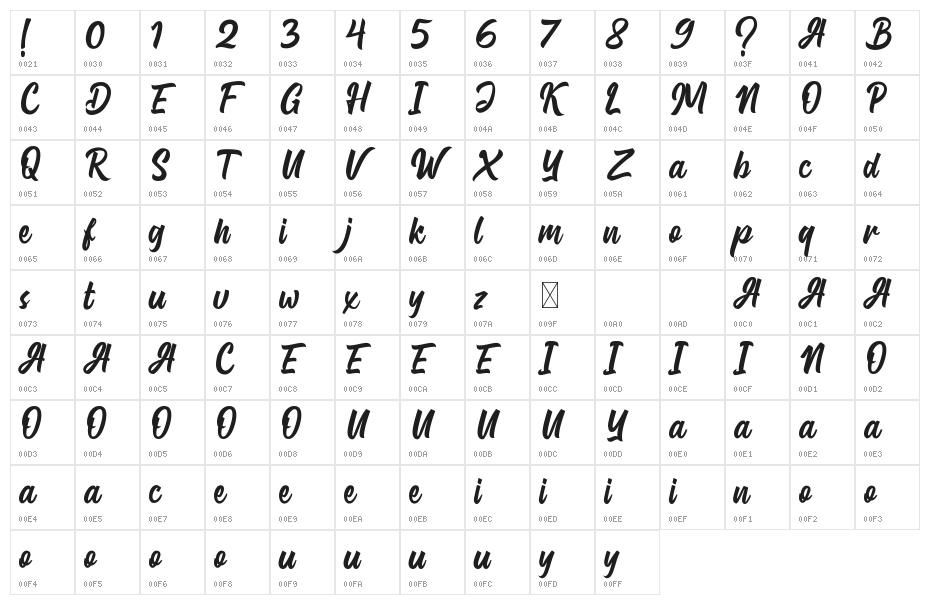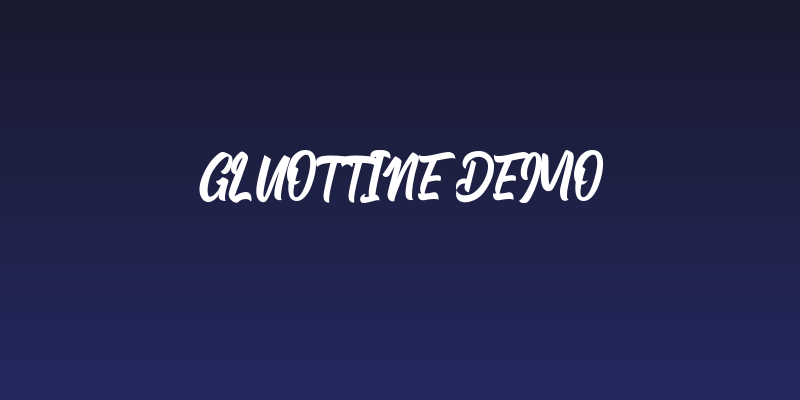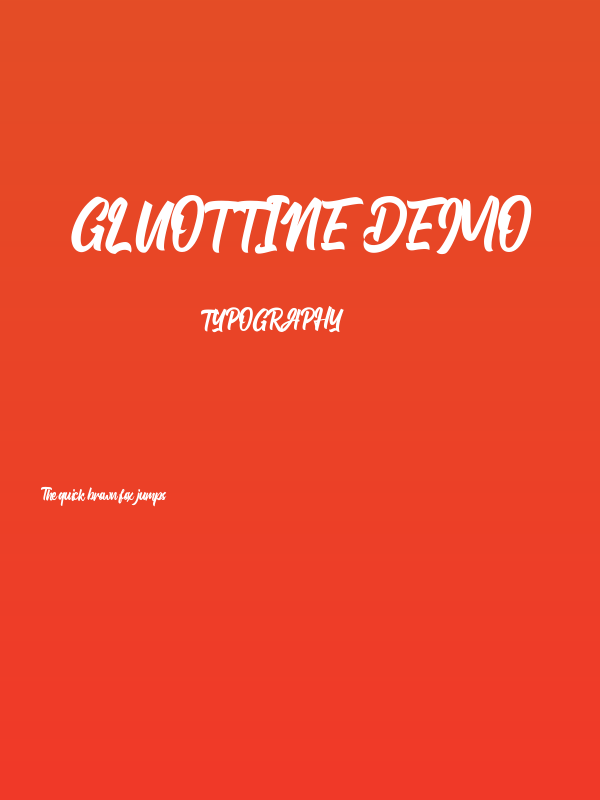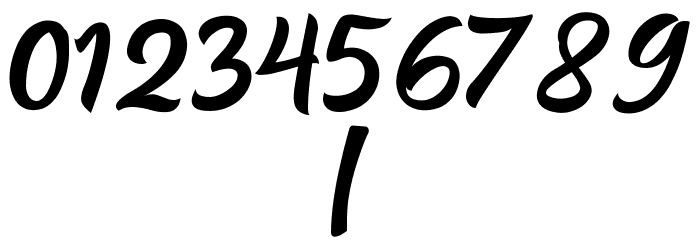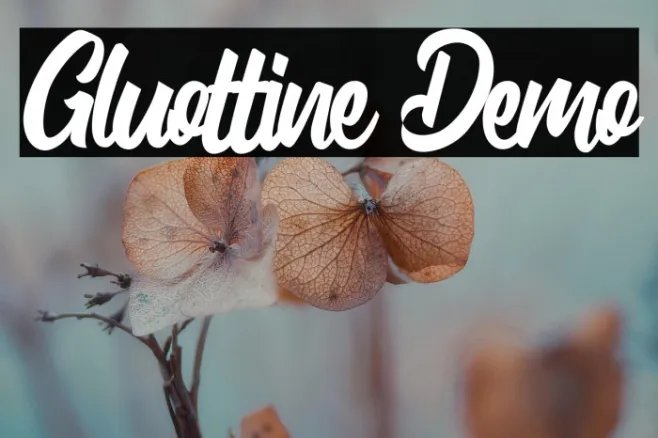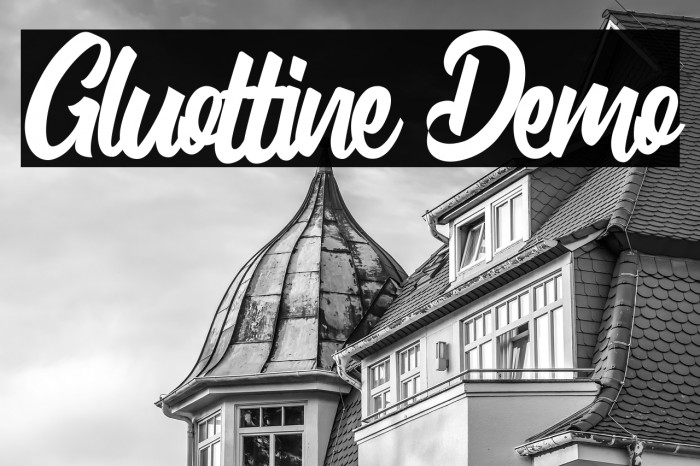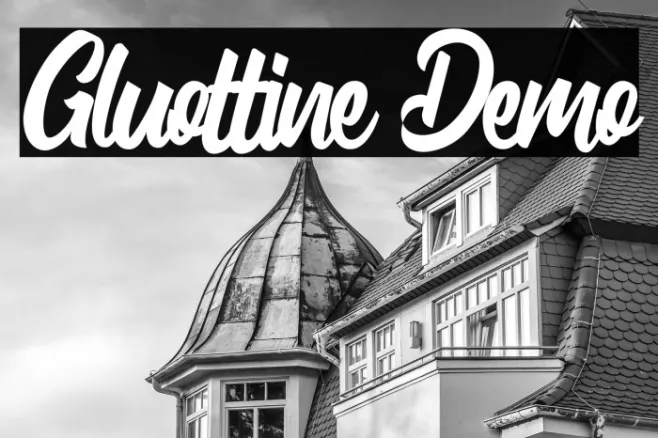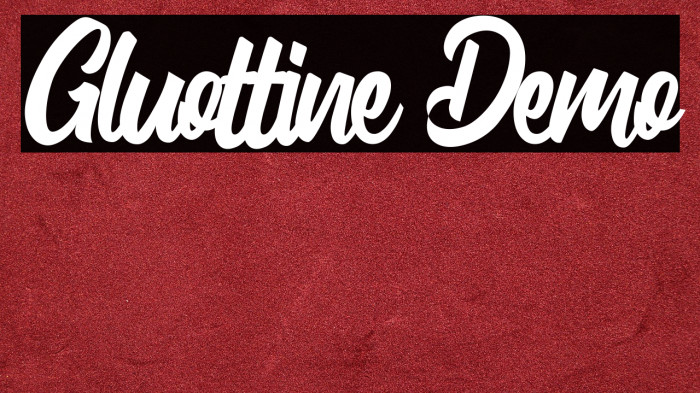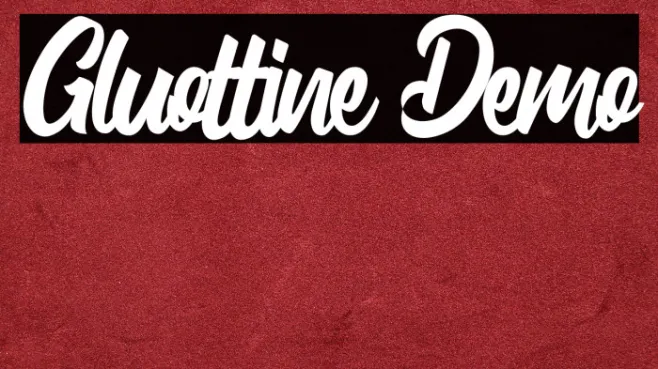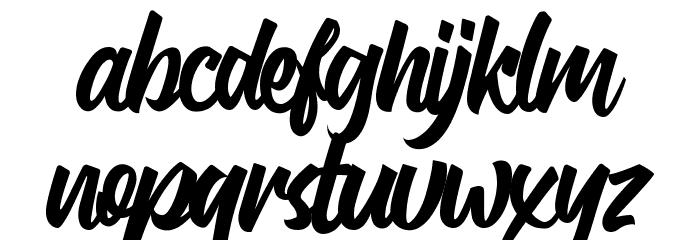
Gluottine Demo Font
Gluottine Demo Description
This font features a bold, cursive style with a dynamic and flowing appearance. The letters are interconnected, creating a sense of movement and fluidity. The strokes are thick and consistent, providing a strong visual impact. The uppercase letters are slightly more structured, while the lowercase letters exhibit a more playful and informal style. The numbers maintain the same boldness and are easily legible. Overall, this font exudes a sense of energy and creativity, making it suitable for projects that require a lively and engaging typeface.
| Proposed Projects | Ideal for branding, logos, posters, and creative projects that require a lively and engaging typeface. |